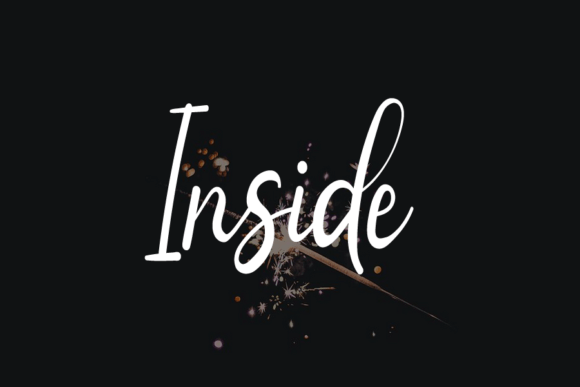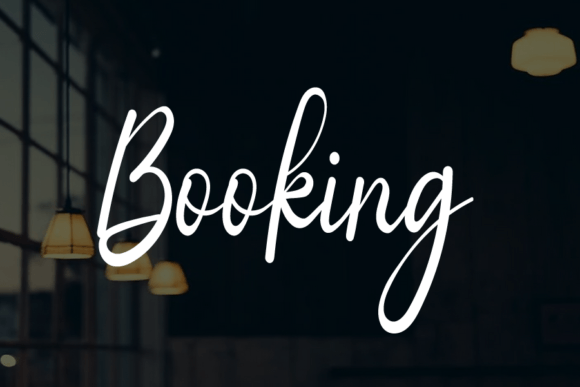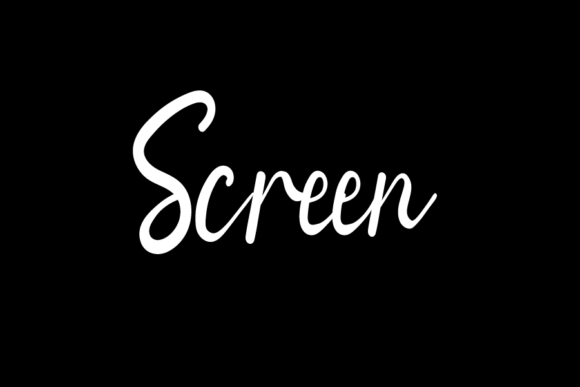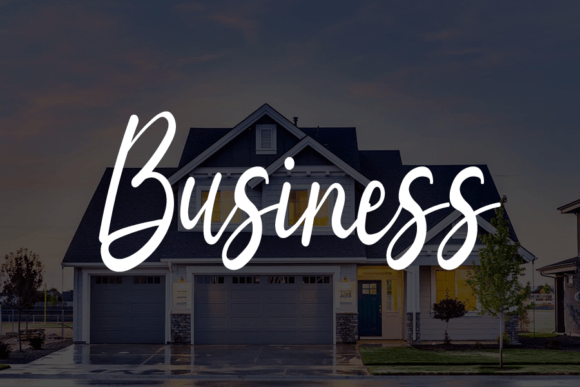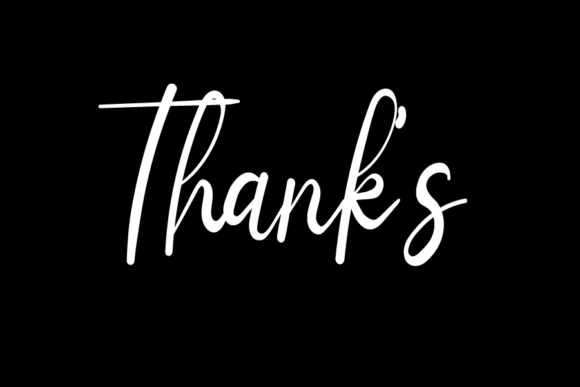
Brightnes Font
About Brightnes Font
“Brightness” stands as an exquisite example of a neat and beautiful handwritten font, its elegance radiating through every carefully crafted curve and stroke. This font is not merely a typographic tool; it’s a design companion that adds an extra layer of sophistication to your creative endeavors.
The distinct and timeless style of “Brightness” sets it apart, making it a versatile choice for a multitude of projects. Whether you’re crafting impactful quotes, designing enchanting invitations, or developing a chic logo, this font’s elegant touch proves to be the secret ingredient for a touch of charm and sophistication.
Picture the application of “Brightness” in a chic and stylish branding project. The font’s elegant script seamlessly enhances the overall visual appeal, transforming an ordinary design into something extraordinary. Its versatility is further showcased in quotes or on social media posts, creating a sophisticated and memorable impression that resonates with audiences.
The charm of “Brightness” extends beyond the digital realm to tangible materials, offering a timeless and distinct flair to print designs. Whether adorning packaging, invitations, or promotional materials, this font brings an elevated aesthetic that captures the essence of timeless style.
Choosing “Brightness” is not just selecting a font; it’s curating an experience for your audience. Its neat and beautiful qualities make it a font that communicates refinement and artistry. Fall in love with the art of design as “Brightness” becomes the brushstroke that transforms your creative vision into a masterpiece.
In summary, “Brightness” is more than a typographic element; it’s a design asset that elevates your projects to new heights. Embrace its elegance, revel in its distinctiveness, and let it be the beacon that guides your creations toward a realm of spectacular and timeless design.